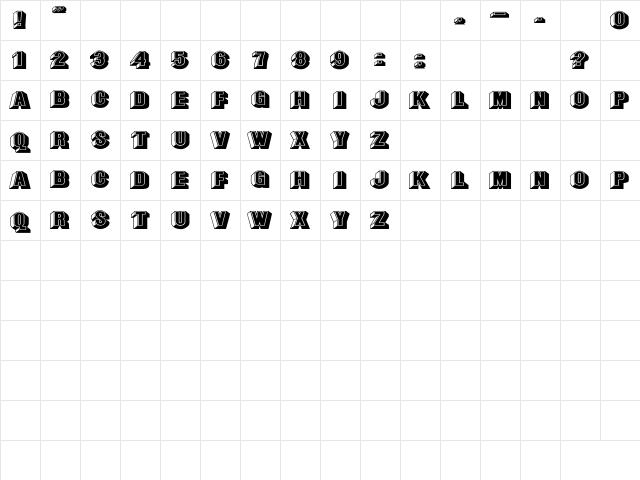
Savannah Fat Wd Regular
Design Context for Savannah Fat Wd
Savannah Fat Wd is a composed and adaptable typeface that performs quietly and consistently across a wide range of design contexts.